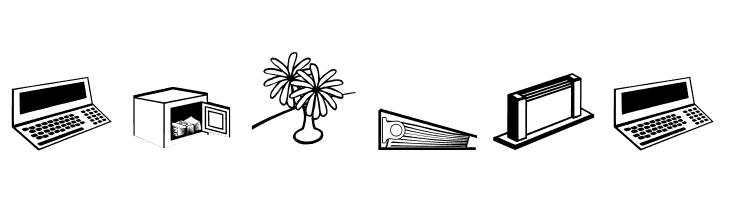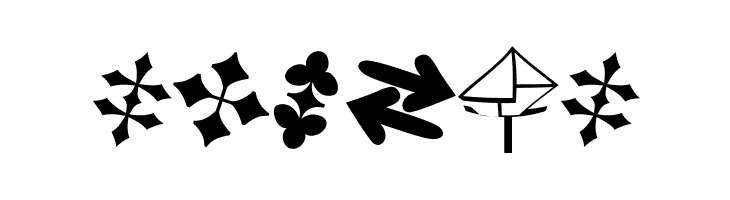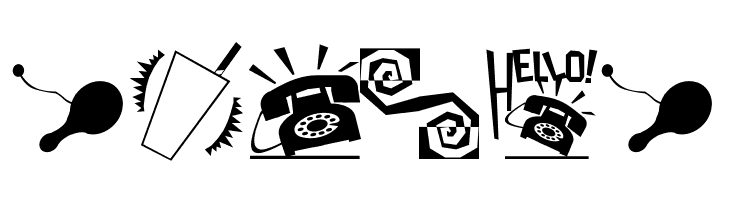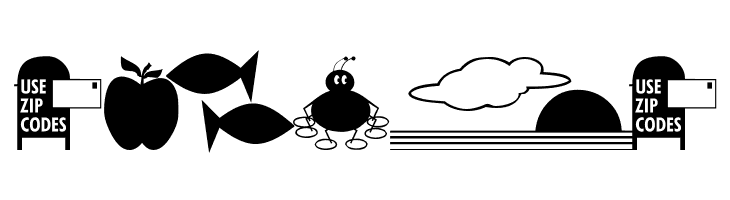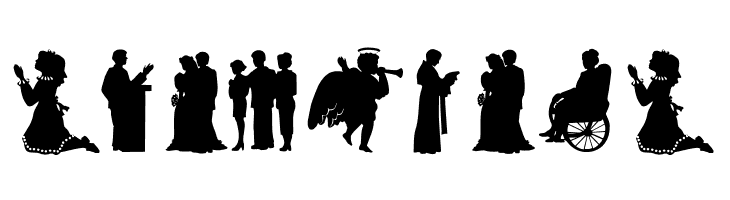
A dingbat font with office and business-themed pictograms.
A playful decorative symbol font with assorted icons and high contrast.
A playful and nostalgic set of 1950s-themed icons with bold, retro designs.
A playful dingbat font with school-themed icons.
Silhouette-based decorative font with narrative pictograms.